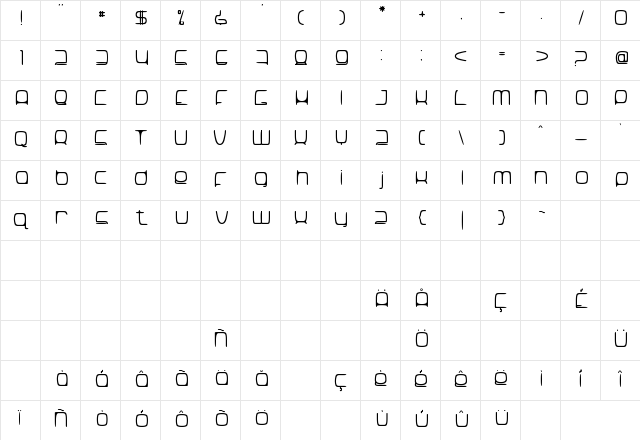
SNORG_002 Regular
| Foundry | Eric Wiryanata |
| Designer | Eric Wiryanata |
Design Context for SNORG_002 Typeface
SNORG_002 offers clean, dependable letterforms without strong stylistic allegiance, making it a practical choice for designers who need flexibility.